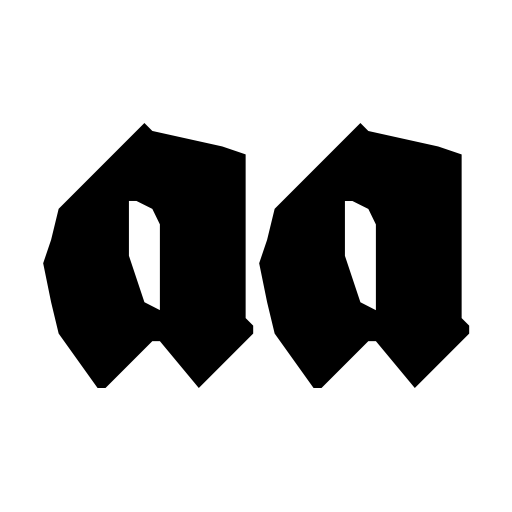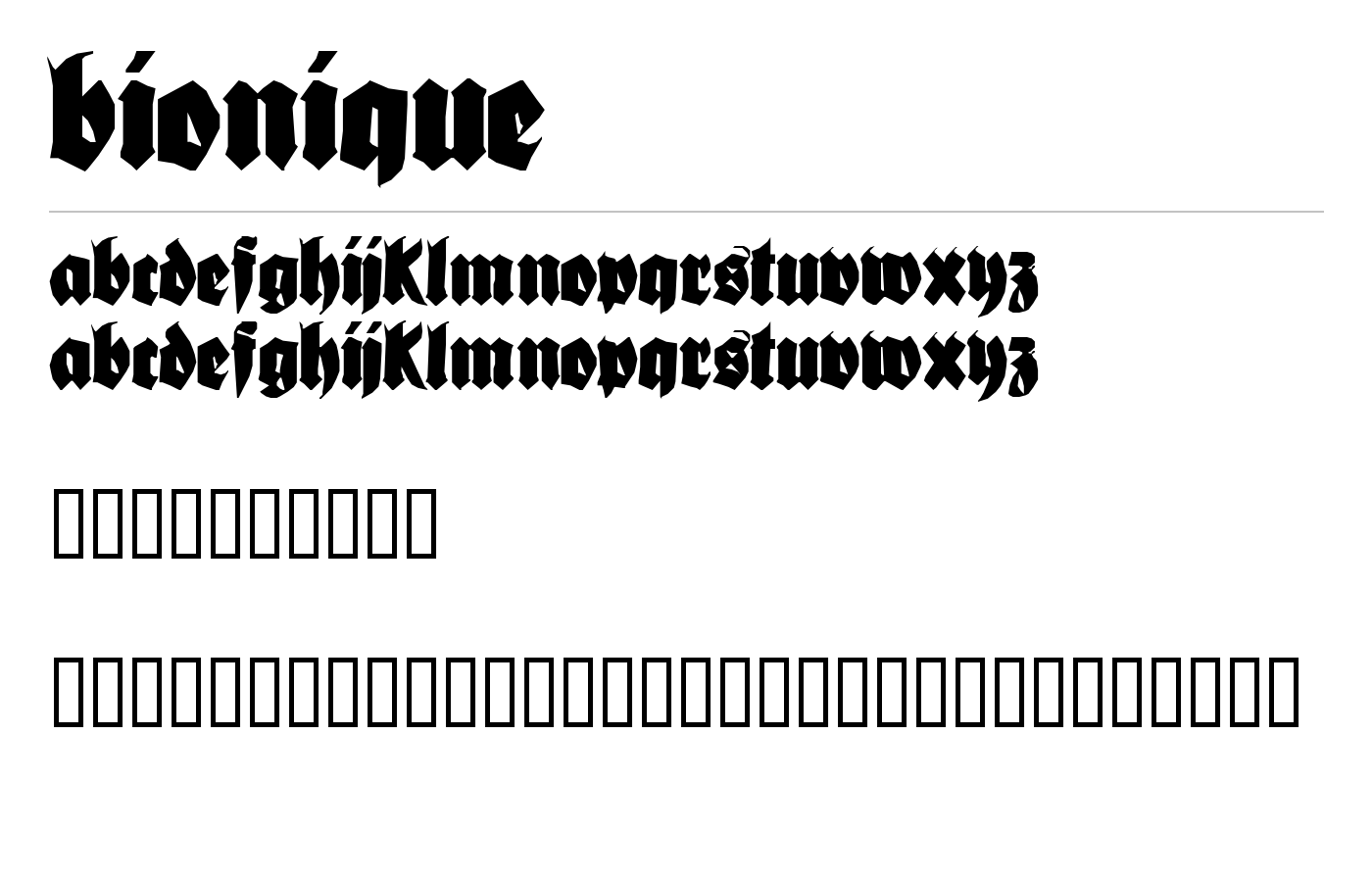
Bionique is a bold blackletter-style font with sharp, angular strokes and a strong, dramatic presence. Its dense, geometric letterforms convey a medieval or gothic feel, making it ideal for projects that seek a vintage, edgy, or artistic vibe. This font works well for headlines, logos, or branding where a distinctive, bold statement is desired.
Bionique Font